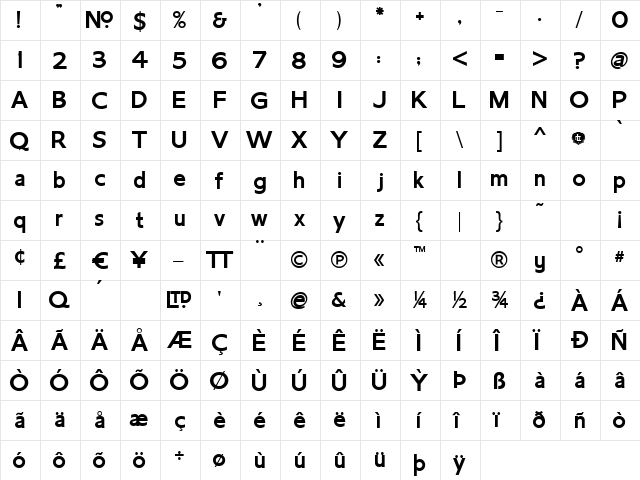
LHF Chesham Sans BOLD Regular
LHF Chesham Sans BOLD offers clean, dependable letterforms without strong stylistic allegiance, making it a practical choice for designers who need flexibility. Its bold stroke weight gives it real presence on the page.